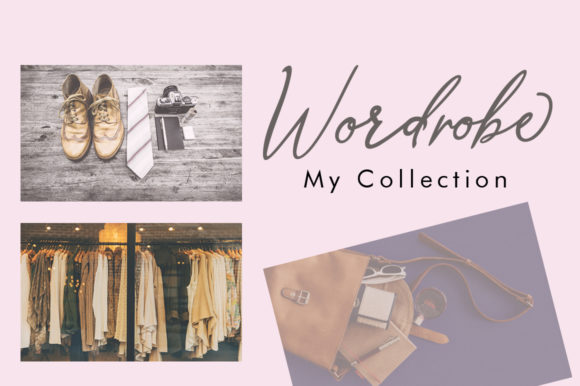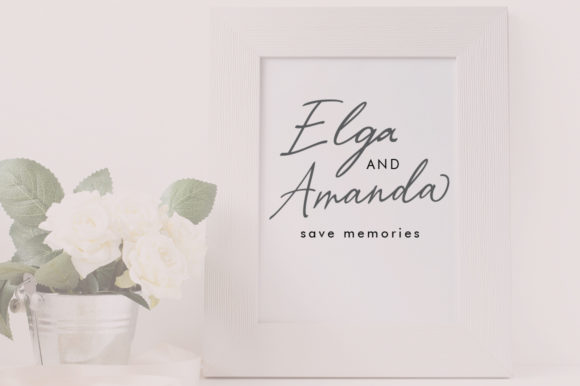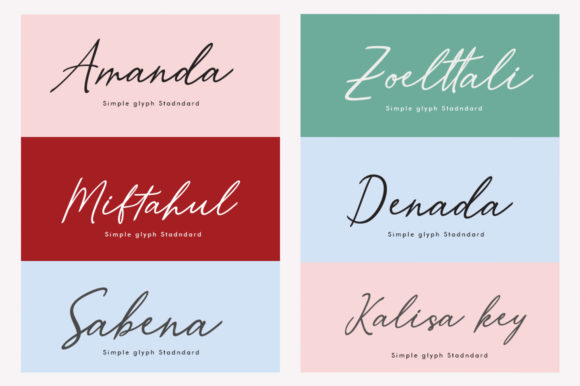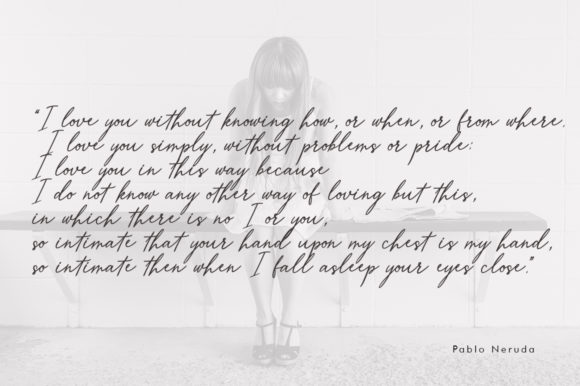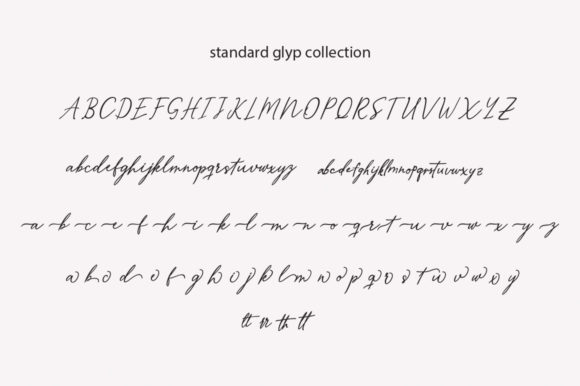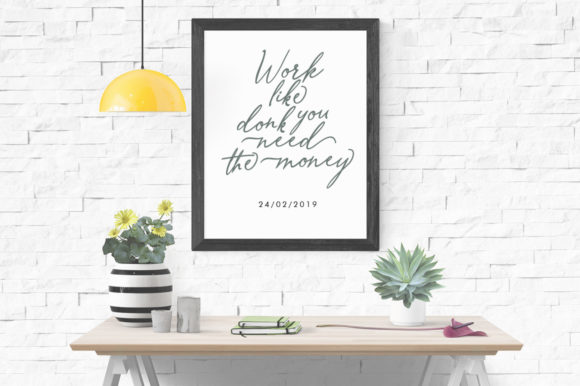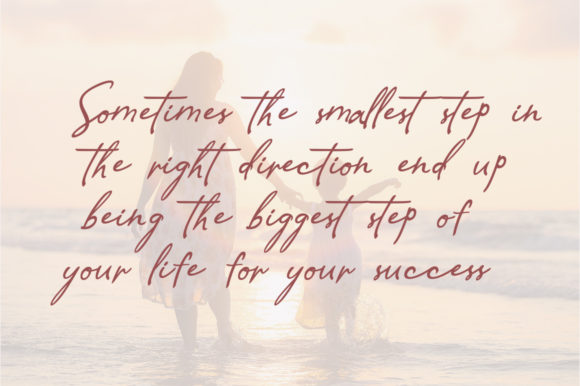
Merrxi Script Font
About Merrxi Script Font
The Merrxi is a modern calligraphy font. It has an amazing handwritten style which can be used for branding, wedding invites, magazines, mugs, business cards, and much more!